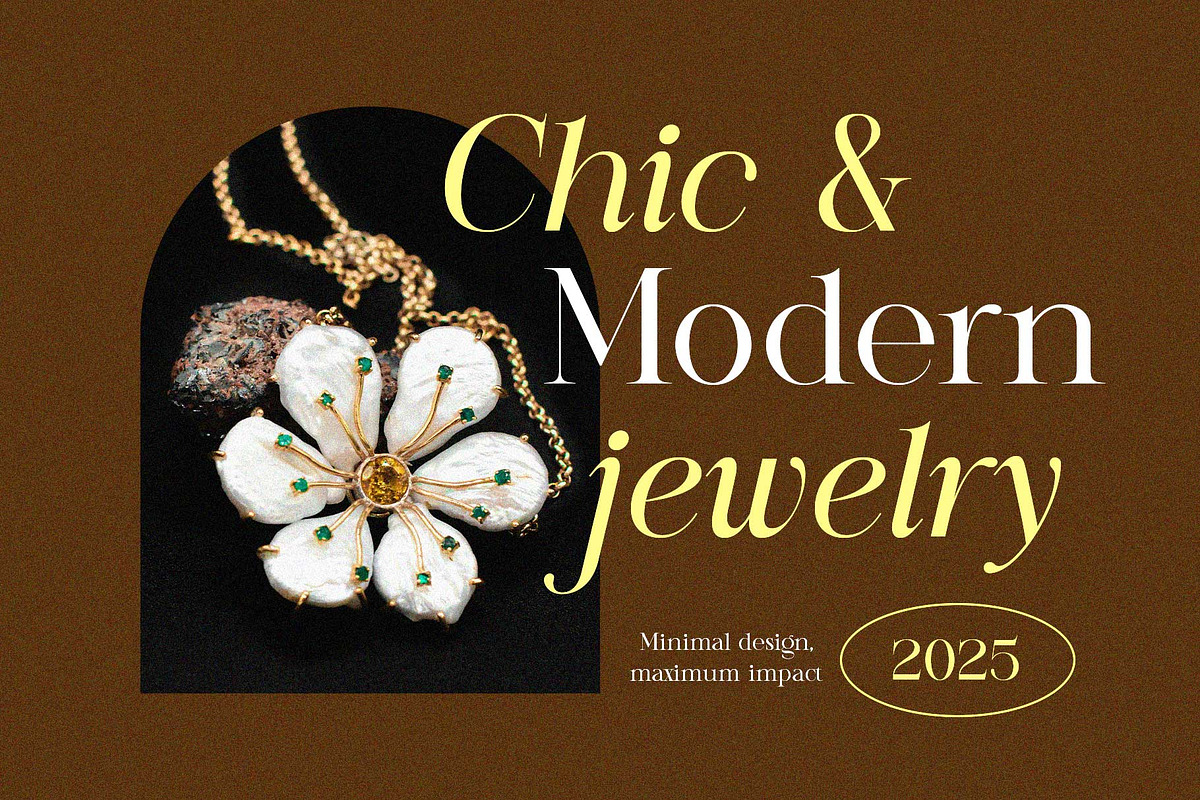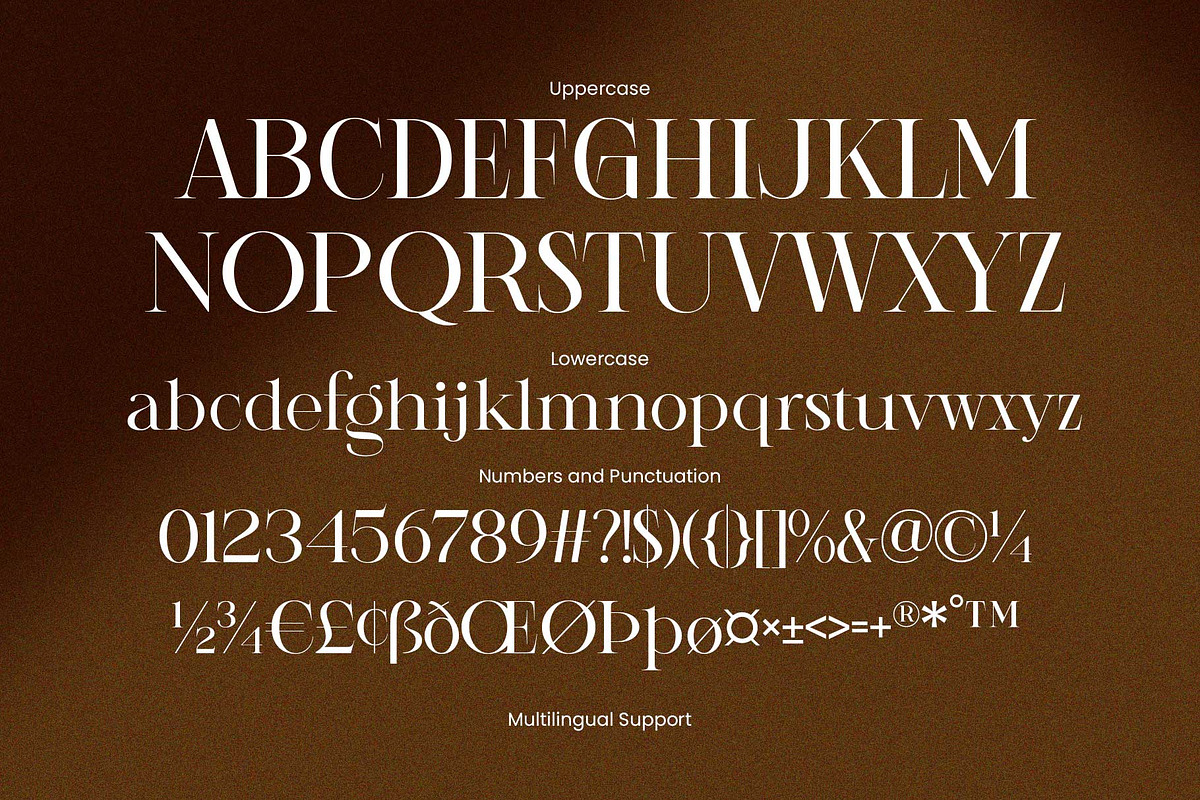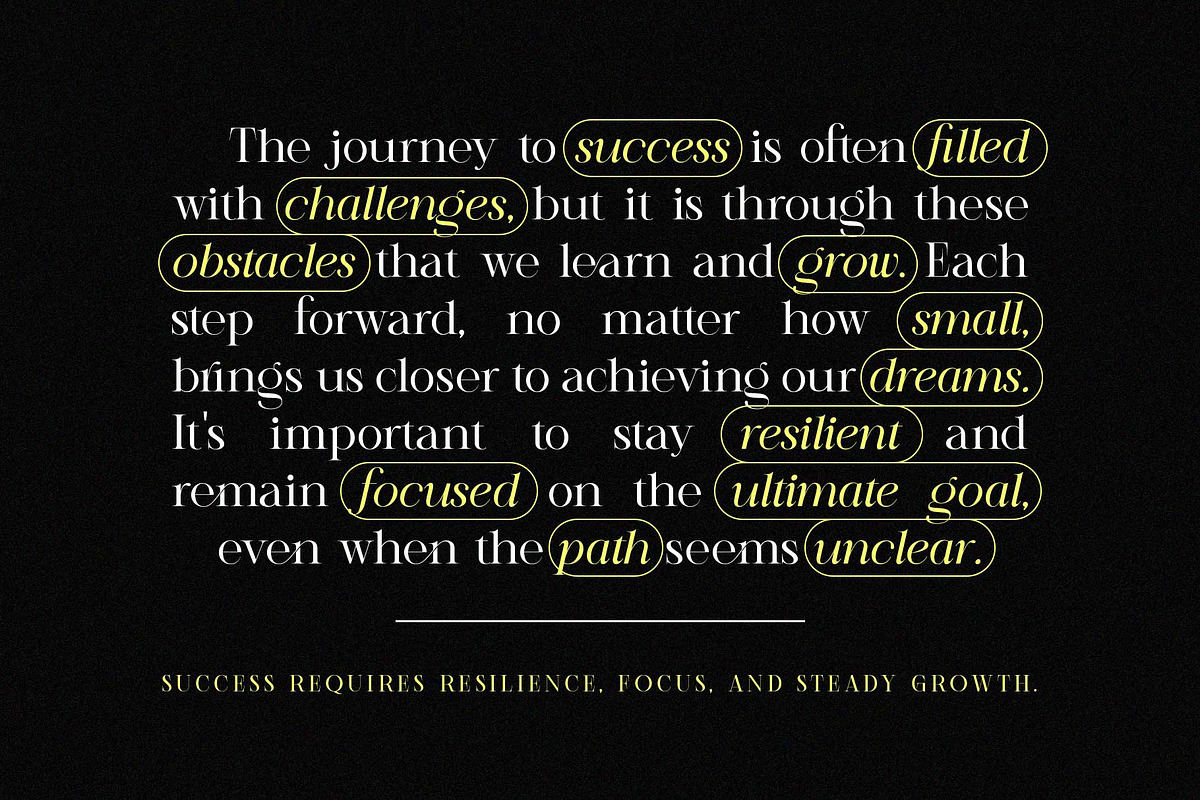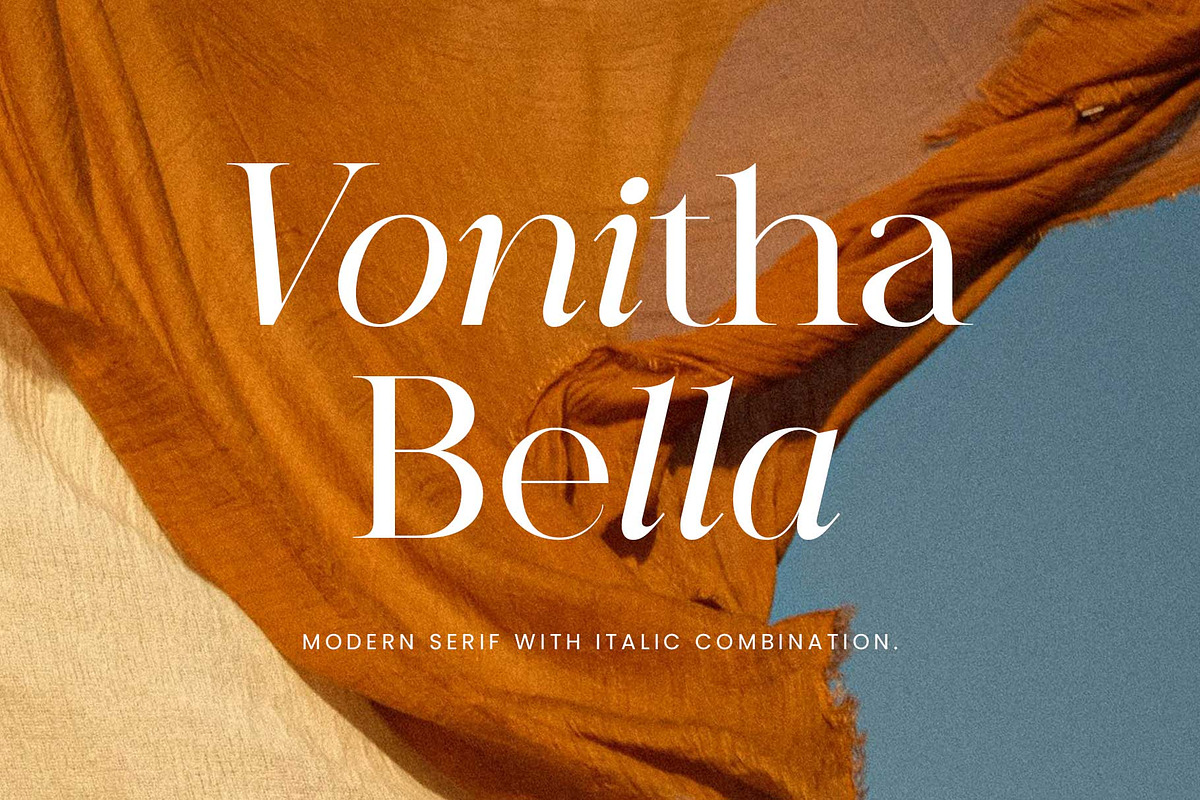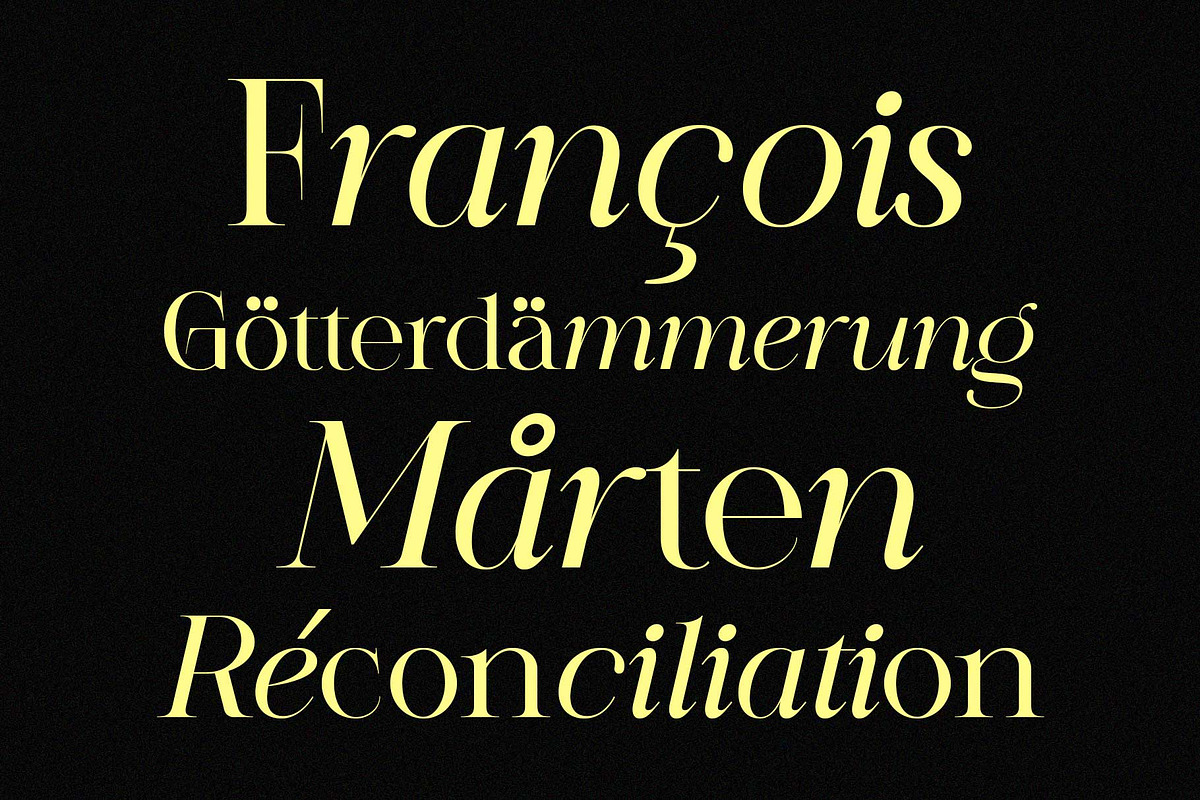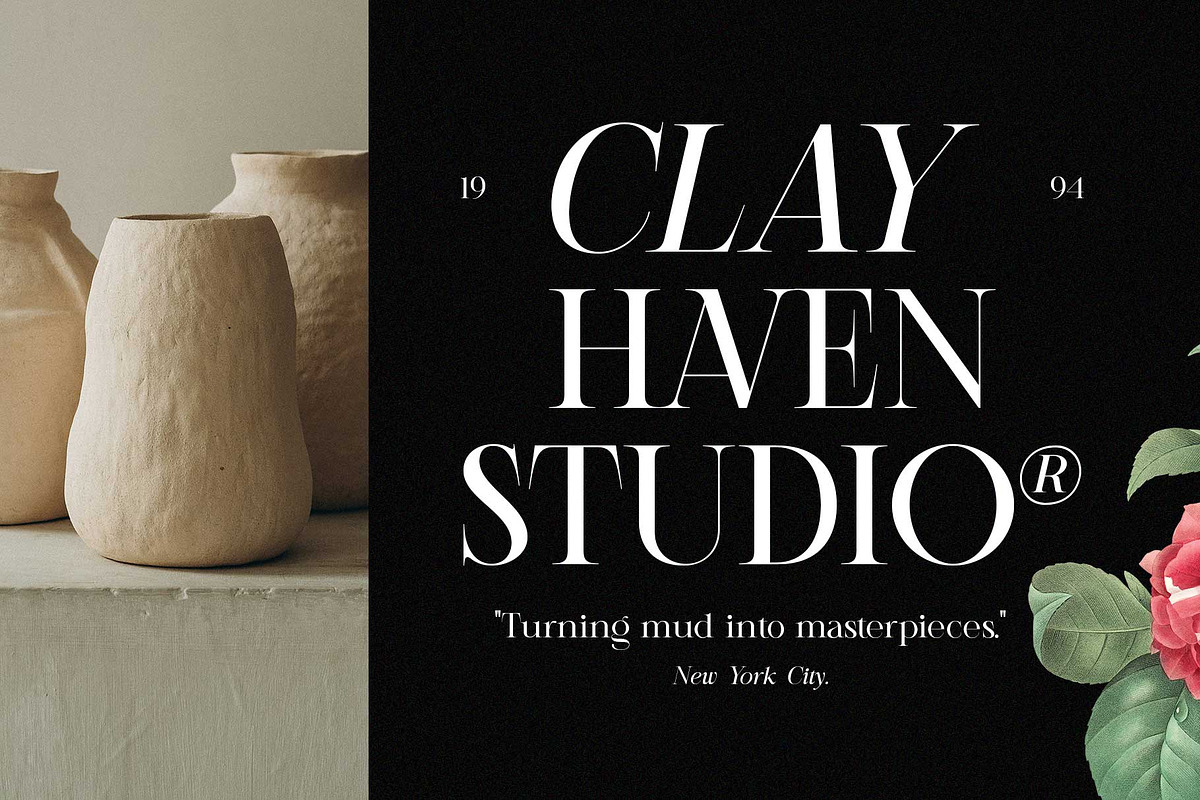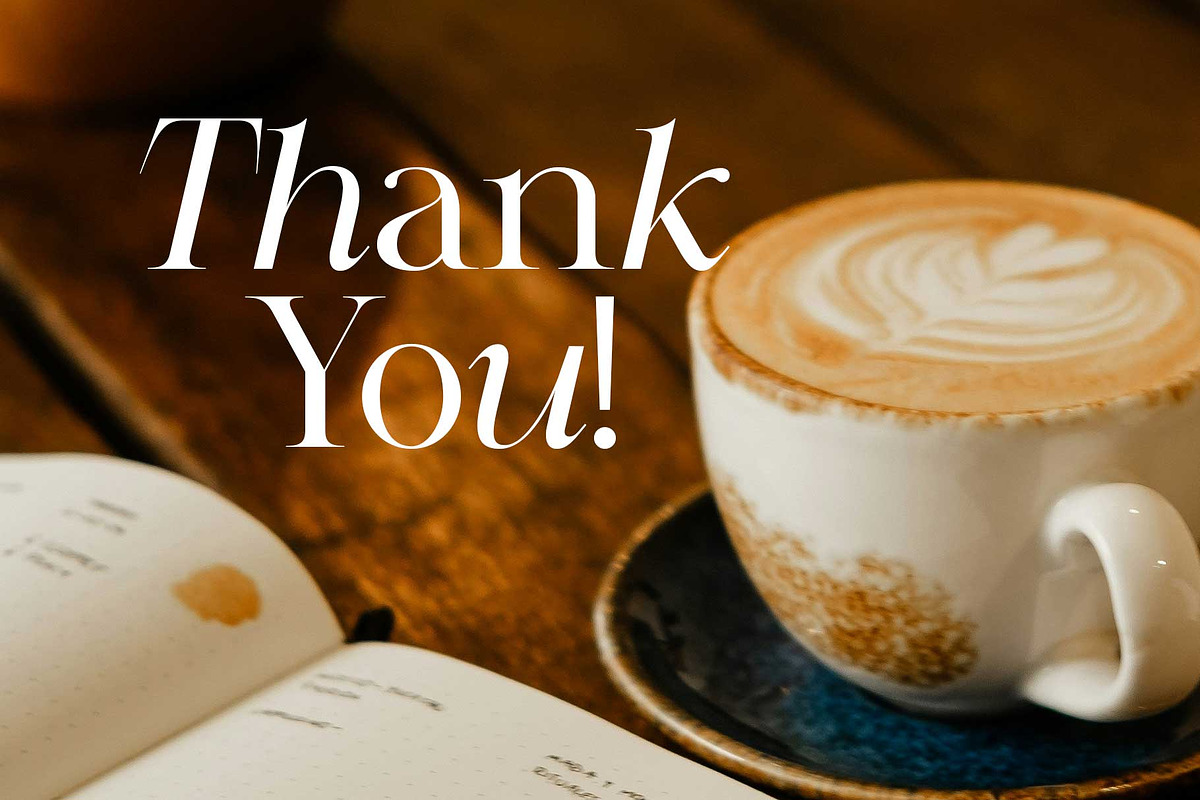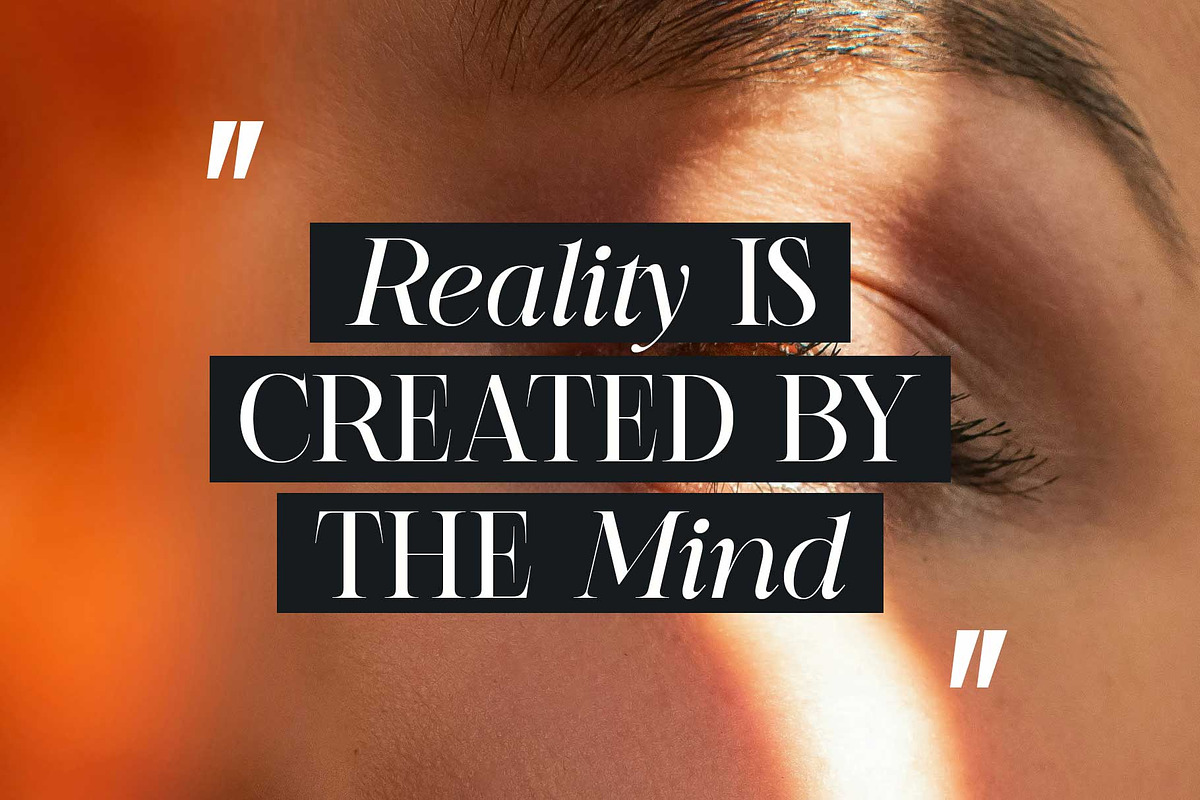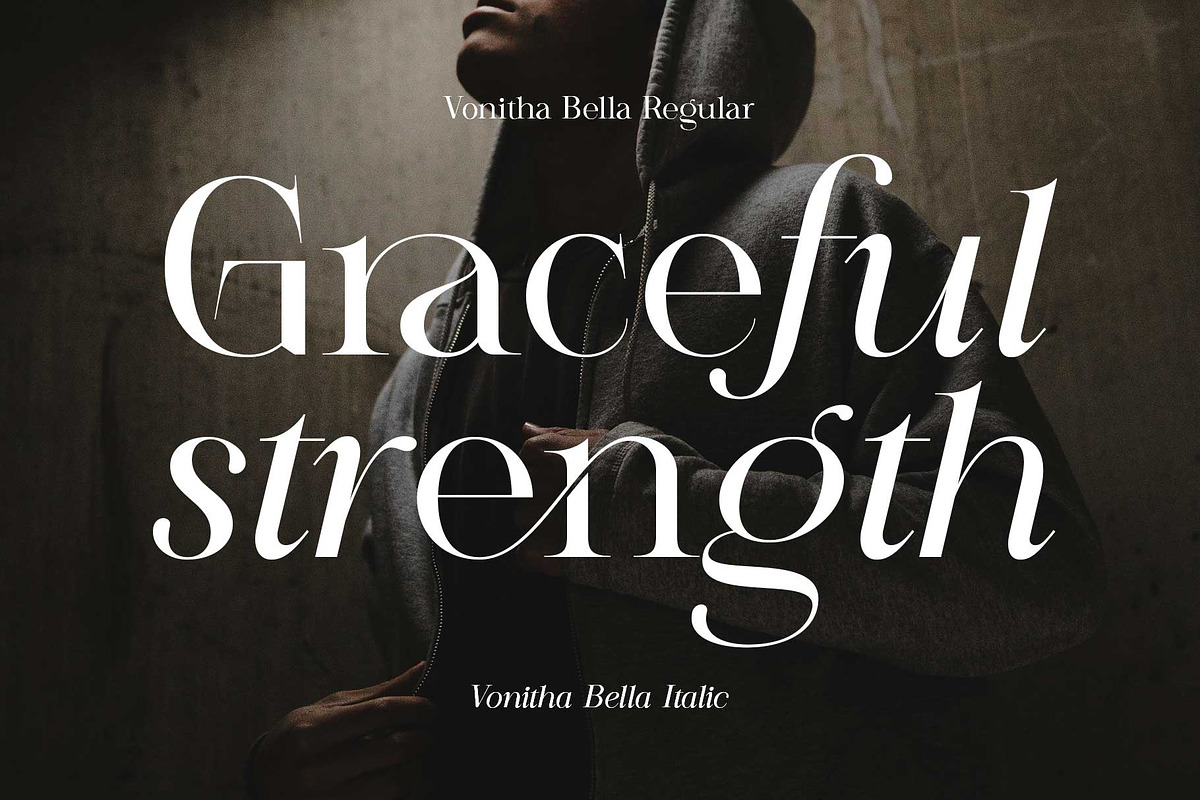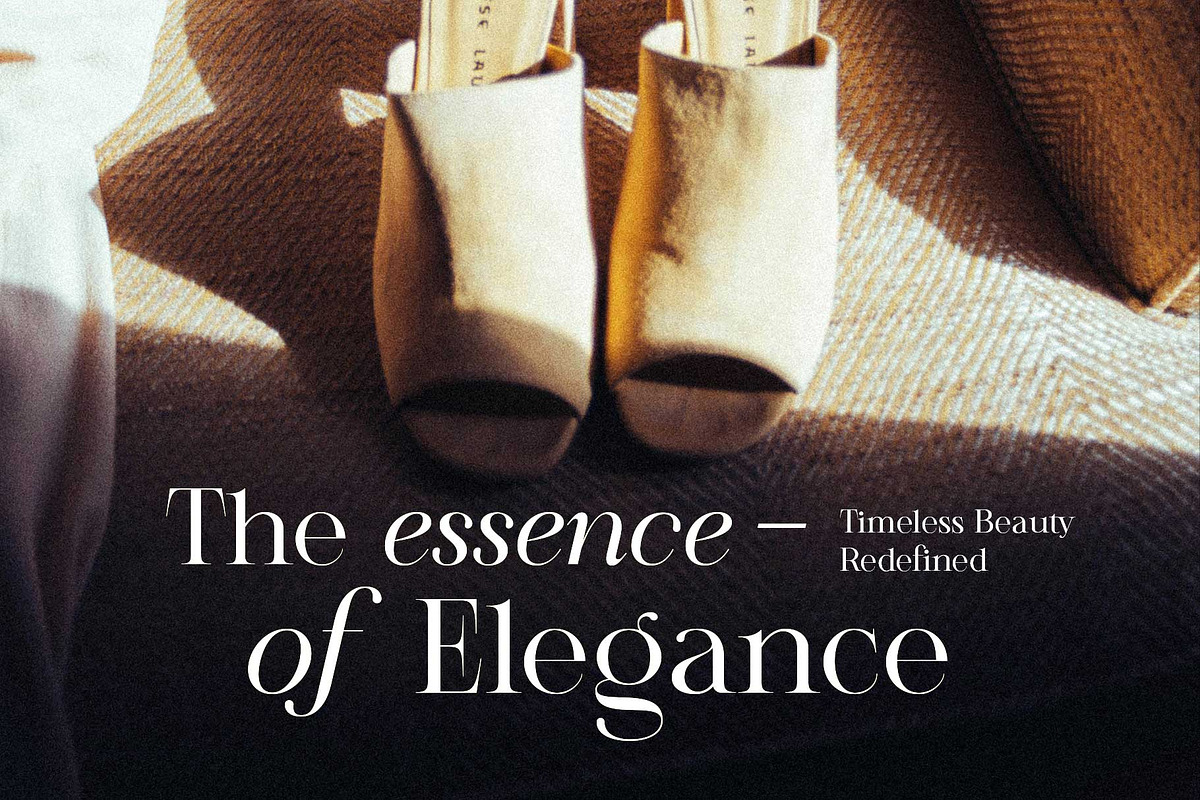
Vonitha Bella
Introducing Vonitha Bella, a luxurious fancy serif font that exudes elegance and sophistication. With its high contrast, clear lines, and feminine vibes, this font is a must-have for creating standout designs.
Vonitha Bella offers versatility with two styles—Regular and Italic—allowing you to mix and match effortlessly for unique typography. Enhance your designs further with its playful ligatures and stylistic alternates.
Perfect for editorial layouts, magazines, books, cards, posters, social media, invitations, wedding designs, and more, Vonitha Bella is your go-to choice for refined and timeless creations.